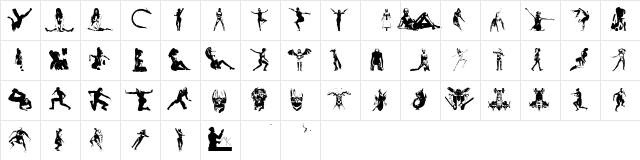
AbstractFragments Regular
Design Context for AbstractFragments Typeface
AbstractFragments is a composed and adaptable typeface that performs quietly and consistently across a wide range of design contexts.